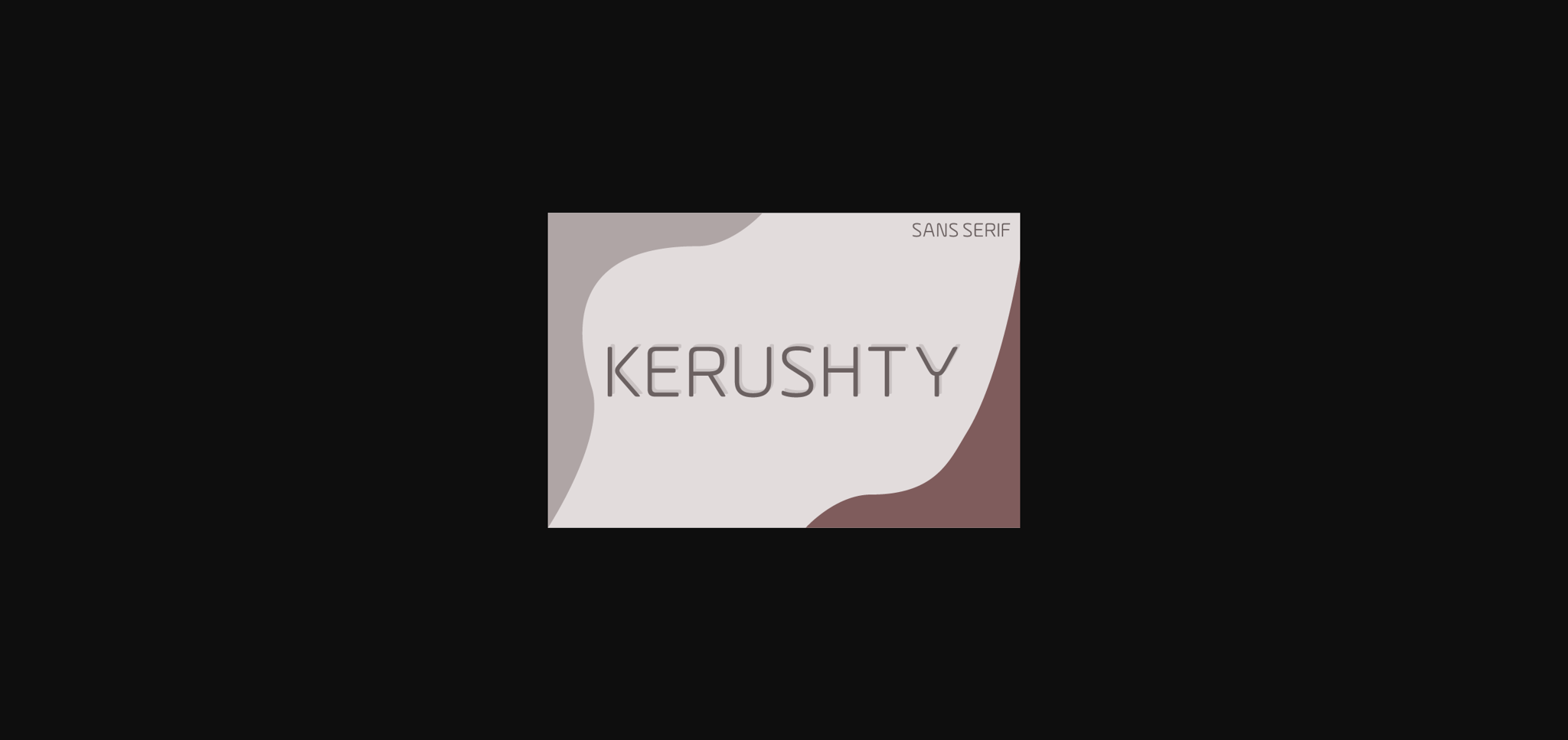
Kerushty Font
About Kerushty Font
Kerushty is a refined and timeless sans serif font. This font is the perfect fit for all of your logos, branding, social media, and crafty DIY projects.